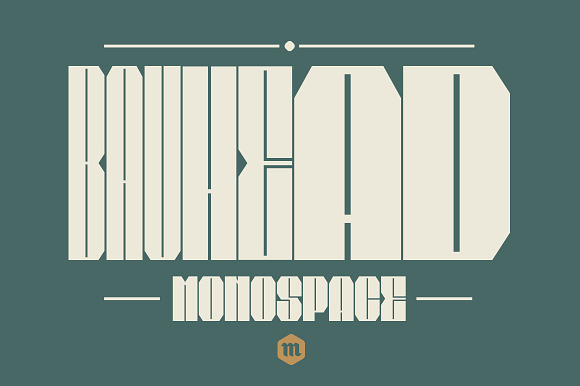
Bauhead Typeface | Font
This modernist typeface is perfect for architectural firms, design studios, tech startups, minimalist branding, industrial products, contemporary galleries, Bauhaus-inspired projects, geometric logos, and avant-garde design applications.
What makes this font exciting is its Bauhaus heritage combined with contemporary functionality, offering designers a geometric typeface that captures modernist principles while delivering systematic precision and timeless architectural sophistication.
The Bauhead font family includes light, regular, medium, bold, black, and ultra variations, providing complete modernist design solutions for creating systematic geometric visual identities.
Whether you're developing architectural brand experiences or crafting modernist design projects, Bauhead Typeface | Font Free Download brings exceptional geometric atmosphere and modernist authenticity to every application. This systematic typeface combines Bauhaus design principles with contemporary functionality, creating letterforms that feel both historical and futuristic. The font's geometric construction and modernist-ready details make it perfect for brands seeking immediate architectural recognition.
Bauhead Typeface | Font features carefully engineered geometric styling with authentic modernist character that conveys genuine design expertise. Each character has been crafted according to systematic principles, with mathematical proportions and functional elements that enhance the architectural aesthetic. The font's geometric qualities make it particularly effective for design firms and architectural applications.
Professional designers choose Bauhead Typeface | Font for projects requiring authentic modernist credibility and geometric atmosphere. Its Bauhaus heritage makes it exceptionally well-suited for architecture studios, design agencies, and systematic lifestyle brands. The font's versatile geometric variations allow designers to control the modernist intensity, from subtle functional elegance to bold architectural statements.
The complete Bauhead Typeface | Font package offers extensive geometric ornaments and modernist decorative elements that enhance the systematic aesthetic. Advanced architectural features allow designers to create complex geometric effects with multiple Bauhaus-inspired options. This comprehensive modernist toolkit ensures designers have everything needed to create authentic architectural communications that celebrate the enduring legacy of functional design and systematic geometric beauty.